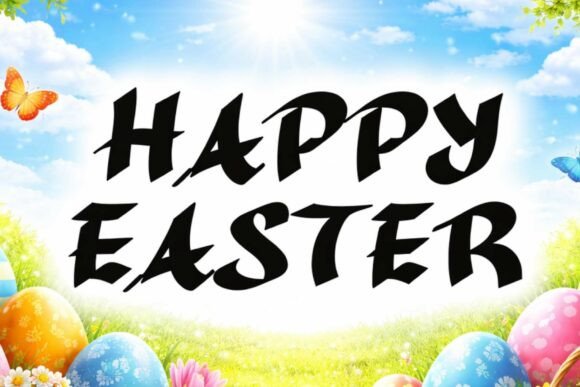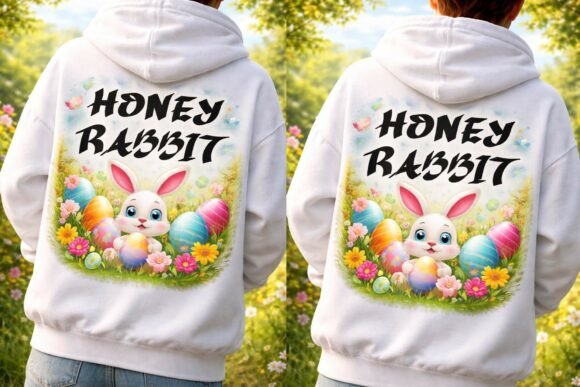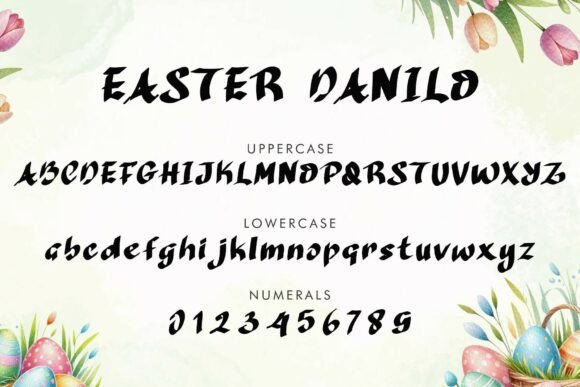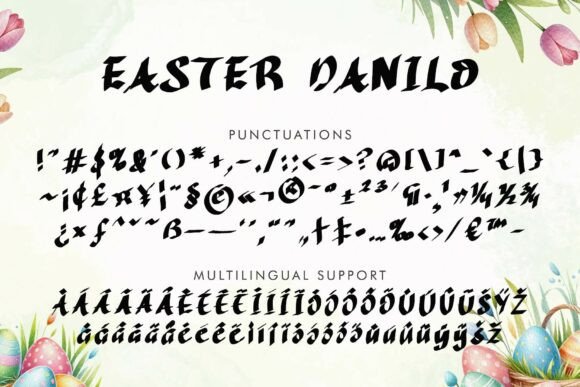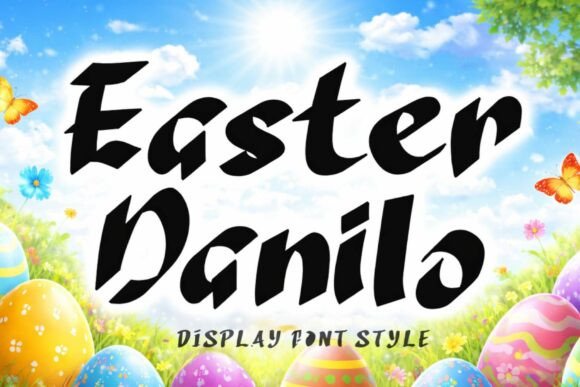
Easter Danilo Font: The Perfect Choice for Your Holiday Designs
Are you looking for a unique and elegant font to make your Easter, summer, or holiday designs stand out? Look no further than the Easter Danilo font! This display font is perfect for creating eye-catching designs for various occasions, including Teacher’s Day, Mother’s Day, Christmas, and more.
What Makes Easter Danilo Font Special?
Easter Danilo is a distinctive and stylish font that features:
• Uppercase and lowercase letters
• Numerals
• Punctuations
• Multilingual support
This font is designed to be versatile and can be used for a wide range of design projects, from print materials like banners, stickers, and logos to digital applications like social media graphics and website headers.
Perfect for Holiday Designs
Easter Danilo font is specifically designed with holidays in mind. Its playful and festive vibe makes it perfect for:
• Easter designs, including bunny and rabbit-themed graphics
• Summer designs, such as vacation brochures and beach-themed posters
• Christmas designs, including holiday cards and gift tags
• Teacher’s Day and Mother’s Day designs, such as certificates and gift tags
This font is sure to add a touch of elegance and whimsy to your holiday designs, making them stand out from the crowd.
Great for Designers and Crafters
Easter Danilo font is a great choice for designers and crafters who want to create unique and eye-catching designs. Whether you’re creating:
• Logos and branding materials
• Print materials like stickers, banners, and posters
• Digital graphics for social media and websites
• Cartoons and comics
This font is sure to inspire your creativity and help you produce high-quality designs that will leave a lasting impression.
Why Choose Easter Danilo Font?
Here are just a few reasons why Easter Danilo font stands out from the rest:
• Unique and elegant design
• Versatile and can be used for various design projects
• Supports multilingual characters
• Perfect for holiday designs and themed projects
With Easter Danilo font, you can create designs that are both visually appealing and effective in conveying your message.
In conclusion, Easter Danilo font is a fantastic choice for designers and crafters looking to create stunning designs for holidays, print materials, and digital applications. Its unique and elegant design, versatility, and multilingual support make it the perfect font for a wide range of projects. So why wait? Download Easter Danilo font today and start creating amazing designs that will leave a lasting impression!
• Uppercase and lowercase letters
• Numerals
• Punctuations
• Multilingual support
Recommended for:
• Easter designs
• Summer designs
• Holiday designs
• Teacher’s Day designs
• Mother’s Day designs
• Christmas designs
• Logos and branding materials
• Print materials
• Digital graphics
• Cartoons and comics